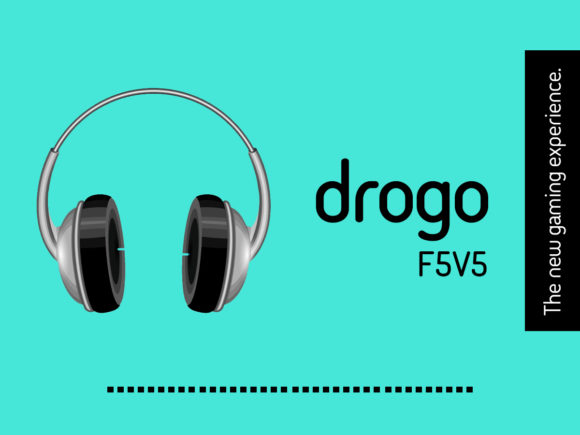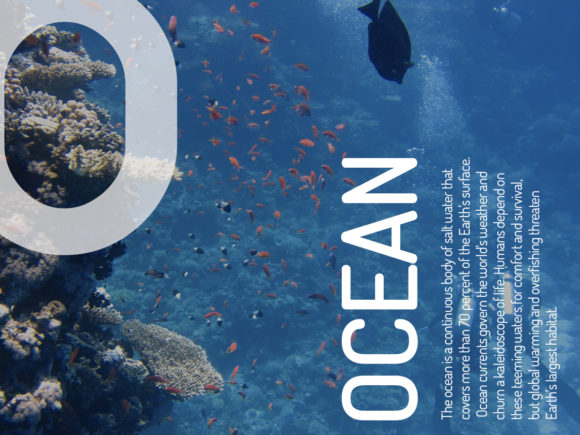
Drogo Font: Elevate Your Designs with a Minimal and Neat Sans Serif
In the realm of typography, fonts play a pivotal role in shaping the visual identity of a project. Whether you’re a designer, a craftsperson, or simply someone with a keen eye for detail, selecting the right font can make all the difference. This is where Drogo Font comes into play—a minimal and neat sans serif font designed to seamlessly integrate with a wide array of projects. In this article, we’ll dive into the world of Drogo Font, exploring its features, applications, and the unique value it brings to creative endeavors.
The Essence of Drogo Font
Drogo Font is characterized by its minimalist and clean design. The sans serif style, devoid of decorative flourishes, lends itself to a broad spectrum of applications, from digital interfaces to print materials. Its neat appearance ensures readability across various mediums, making it an incredibly versatile choice for designers.
Key Features of Drogo Font
- Minimalist Design: The clean lines and simple structure of Drogo Font make it perfect for projects that require a subtle yet impactful typographic presence.
- Versatility: Its sans serif nature allows it to blend into various design contexts, from modern digital platforms to traditional print materials.
- Readability: The font’s clear and uncluttered design ensures high readability, making it suitable for body text, headings, and more.
- Wide Applicability: Drogo Font can be used in a vast range of projects, including but not limited to, branding, web design, mobile apps, advertising, and packaging.
Applications of Drogo Font
The adaptability of Drogo Font is one of its most compelling attributes. Here are some scenarios where Drogo Font can make a significant impact:
- Branding and Logo Design: For businesses looking to establish a modern and clean brand image, Drogo Font can serve as an excellent choice for logos and brand collateral.
- Web and Mobile Design: In digital design, typography plays a crucial role in user experience. Drogo Font’s readability and neatness make it ideal for website and mobile app design.
- Marketing and Advertising: For marketing materials, such as brochures, flyers, and banners, Drogo Font can help convey messages clearly and effectively.
- Crafting and DIY Projects: For crafters and DIY enthusiasts, Drogo Font can add a professional touch to handmade products, such as labels, cards, and posters.
How to Make the Most of Drogo Font
To truly leverage the potential of Drogo Font, consider the following tips:
- Pair it with Other Fonts: While Drogo Font is versatile on its own, it can also be paired with other fonts to create contrast and hierarchy in your designs.
- Experiment with Sizes and Weights: Playing with different sizes and weights of Drogo Font can add depth and interest to your typography.
- Consider Color: The color you choose for Drogo Font can significantly affect its appearance. Experiment with different colors to find the perfect match for your project.
Drogo Font is more than just a typeface; it’s a tool that can elevate your designs, making them stand out in a crowded creative landscape. Its minimal and neat sans serif design, coupled with its versatility and readability, makes it an invaluable asset for designers and crafters alike. Whether you’re working on a digital project, a print material, or a handmade craft, Drogo Font offers the perfect blend of form and function. So, add it to your creative toolkit and discover how it can transform your projects.